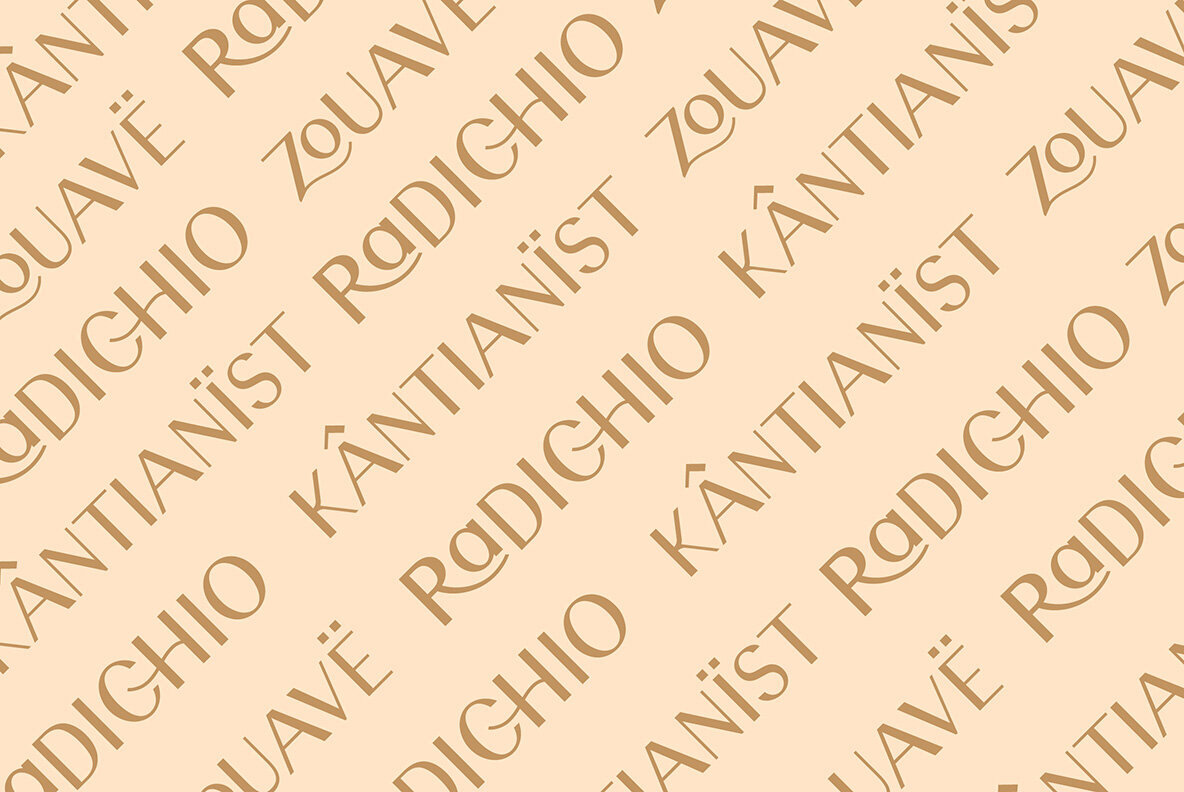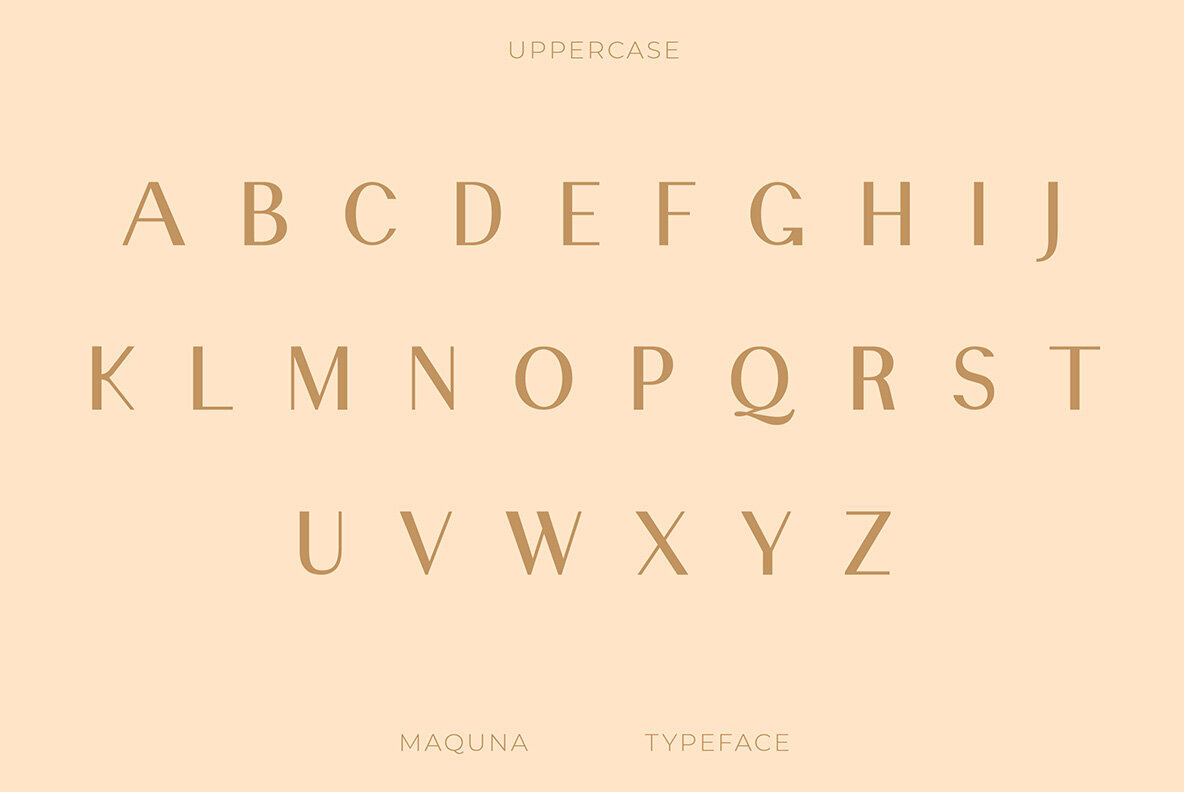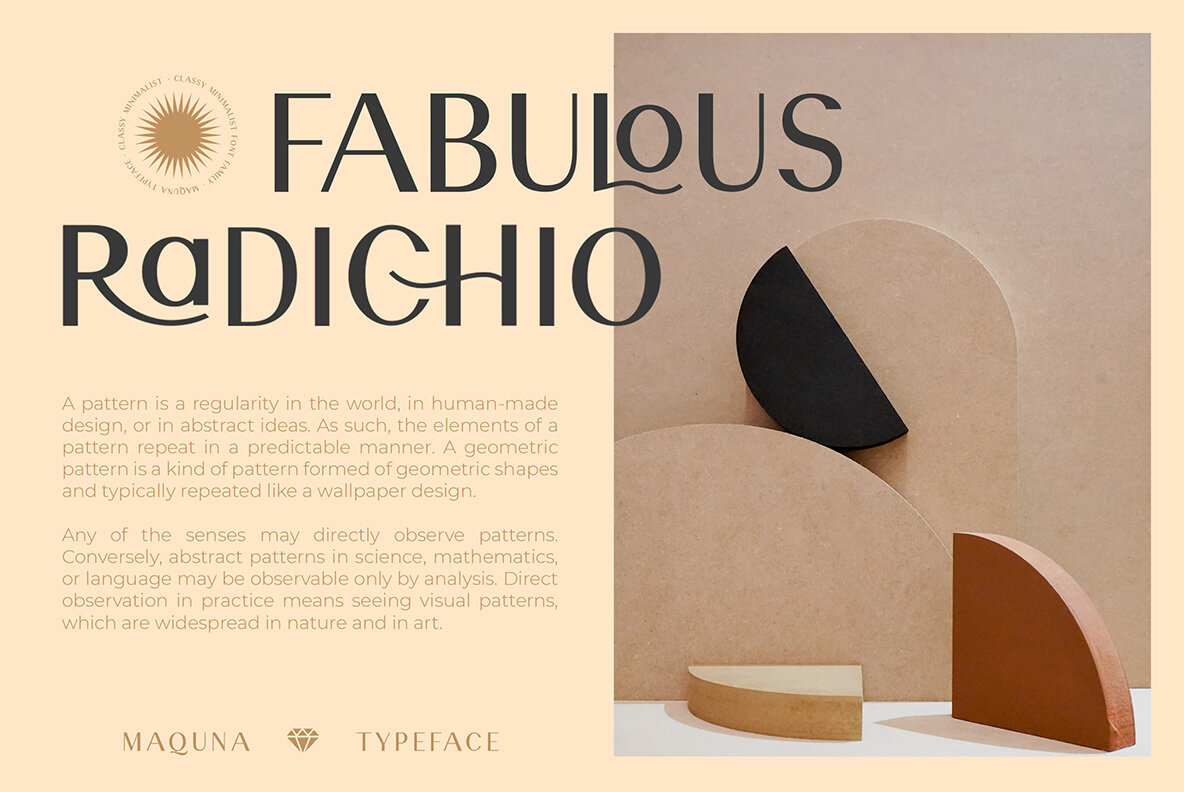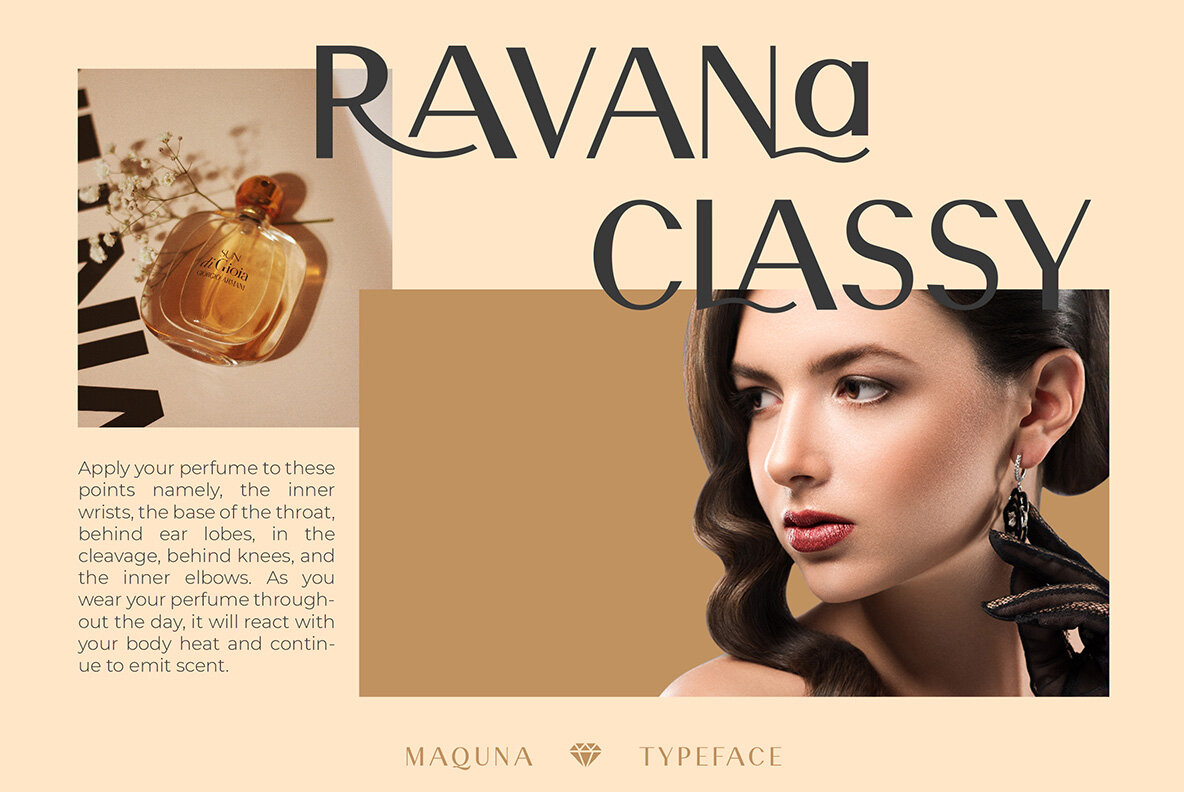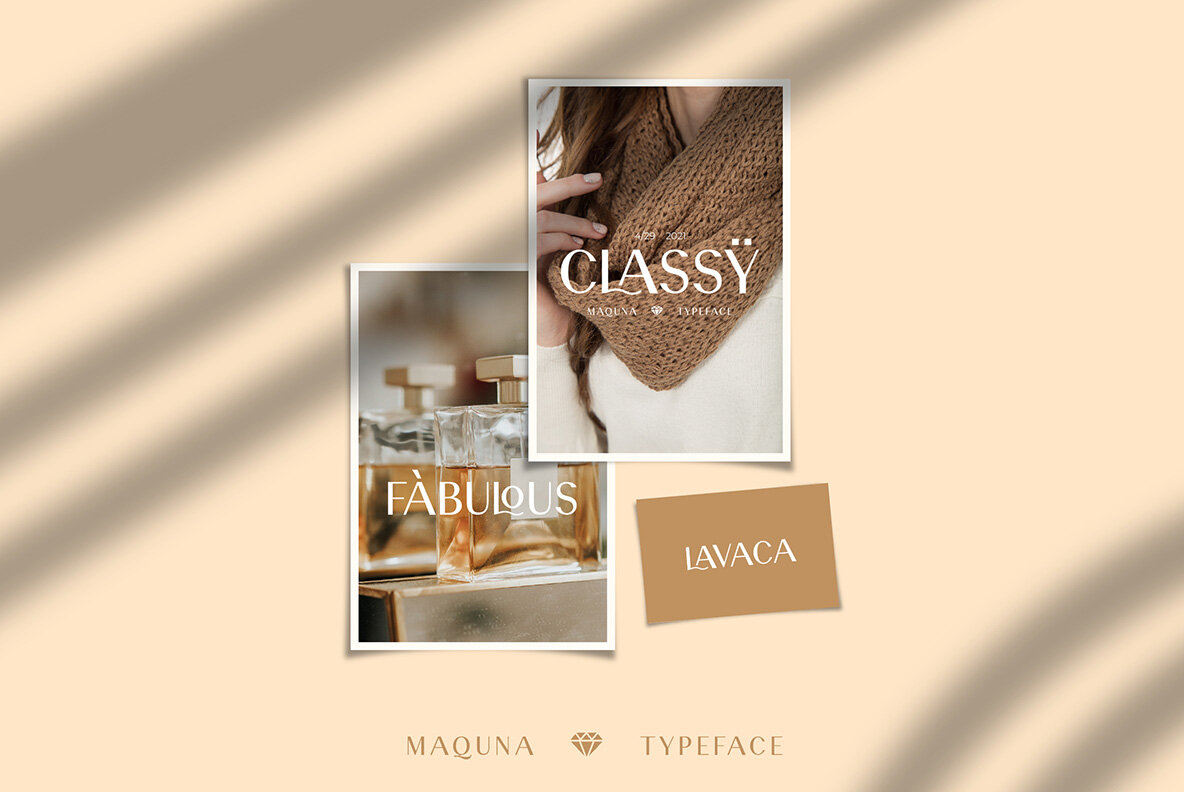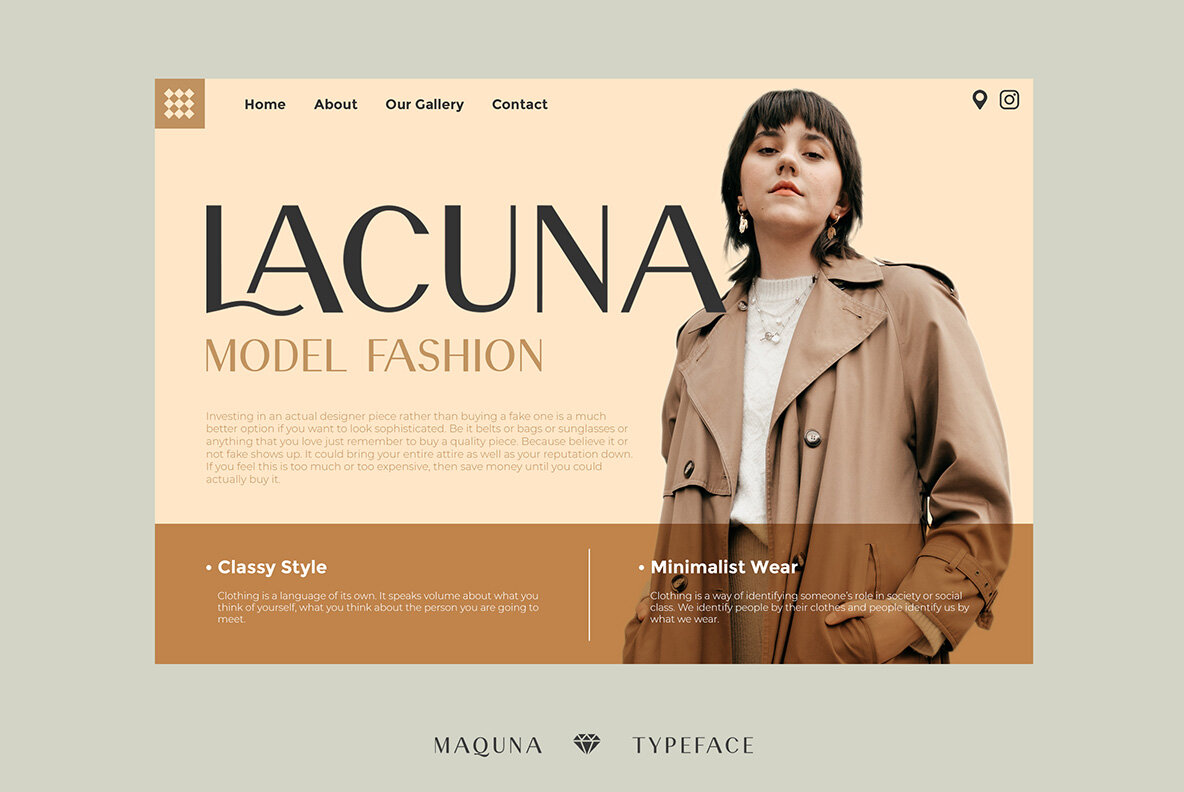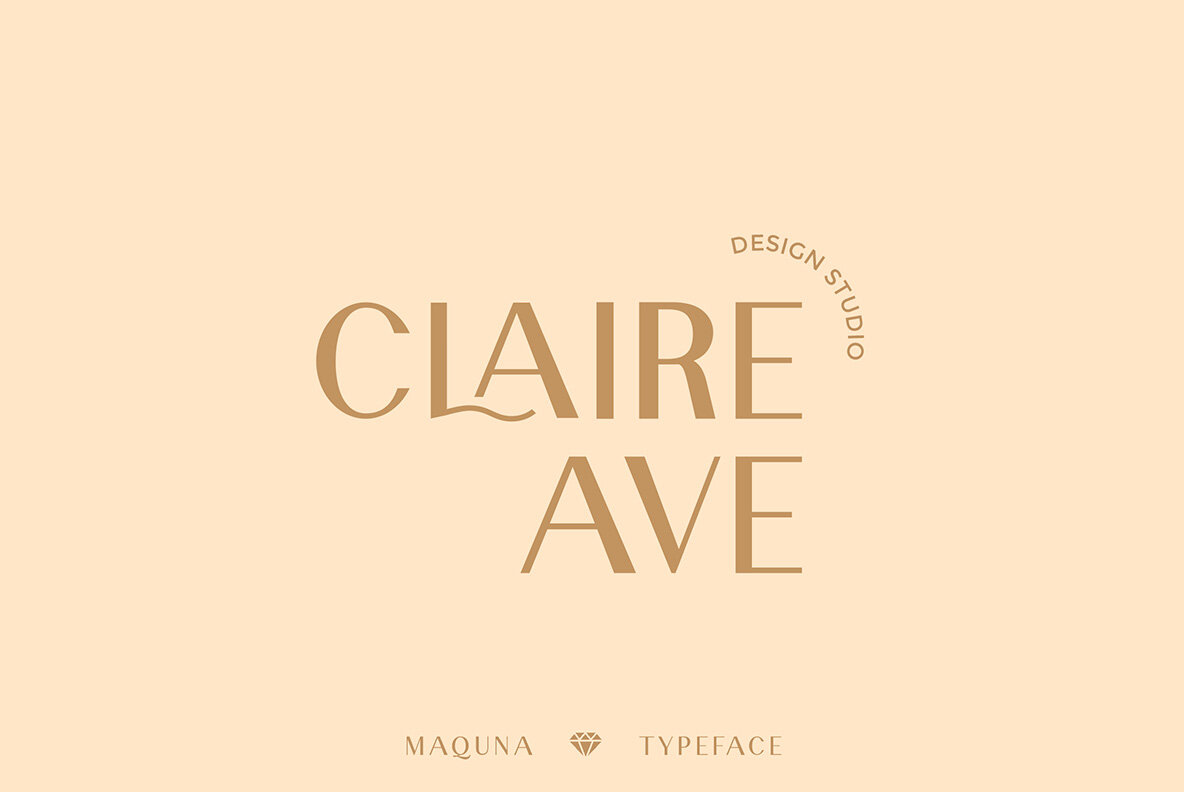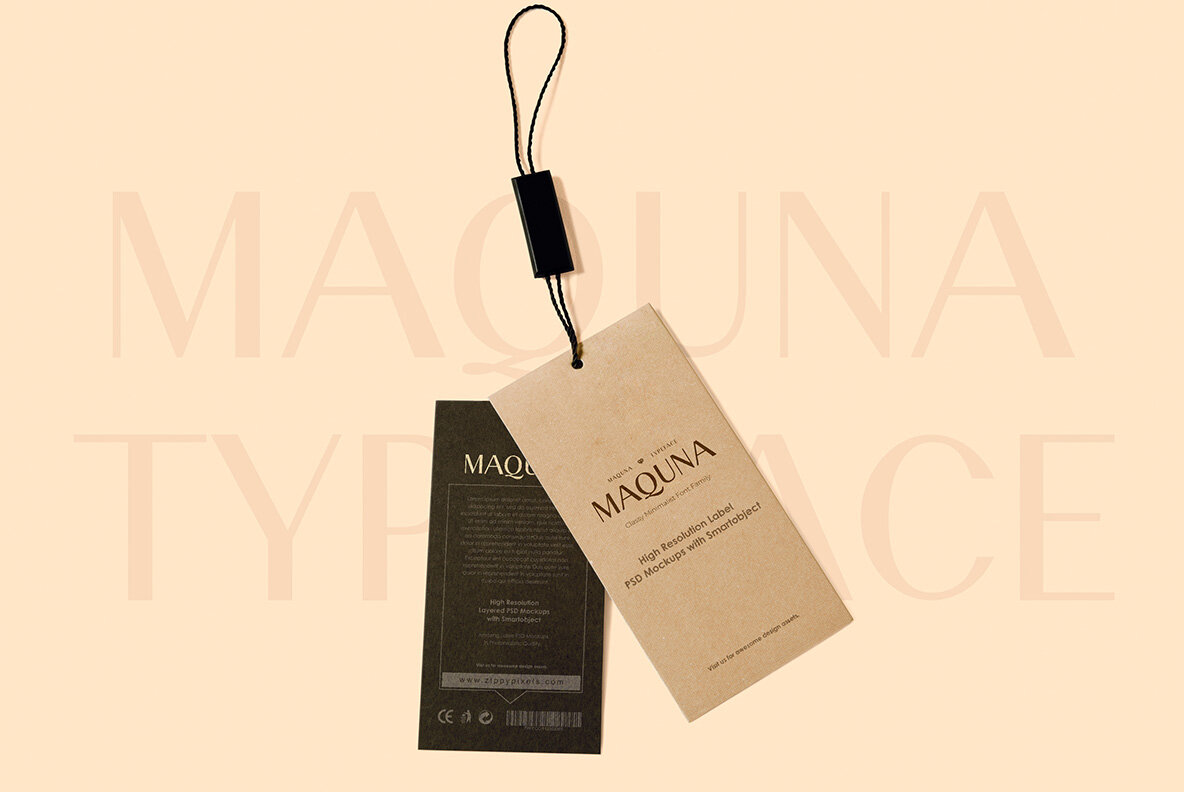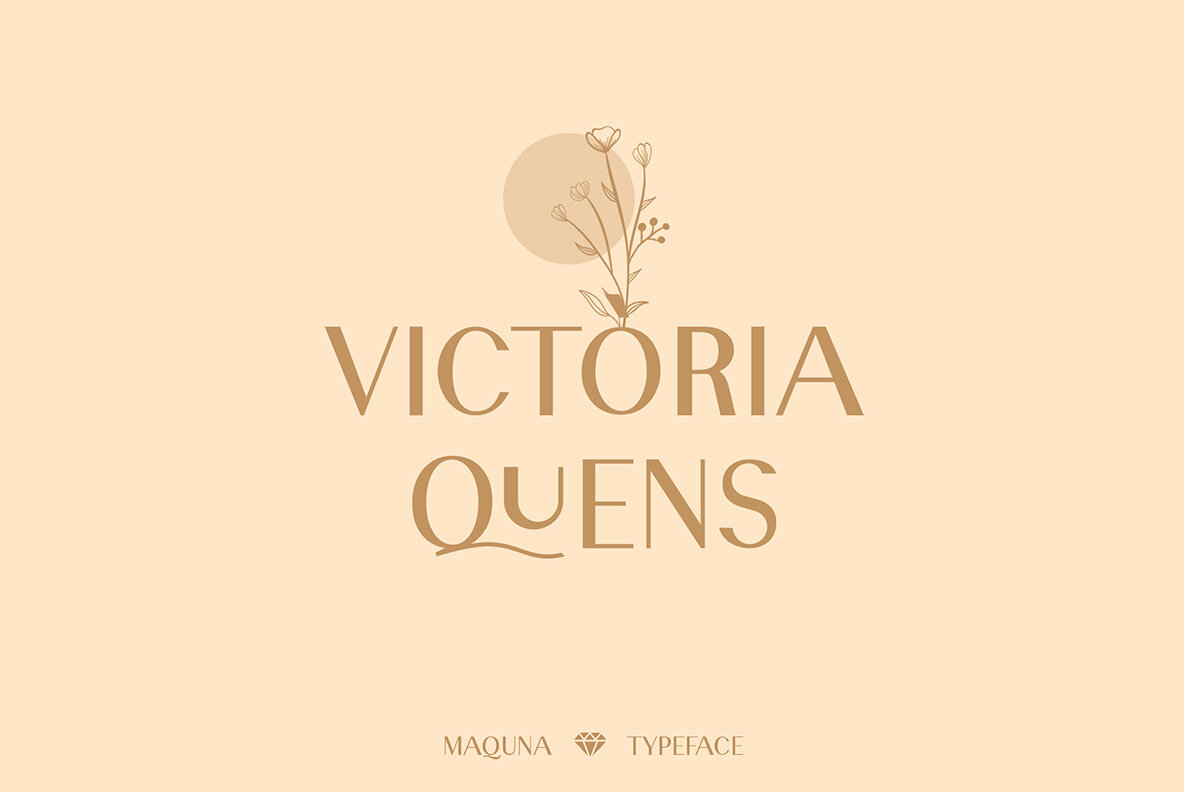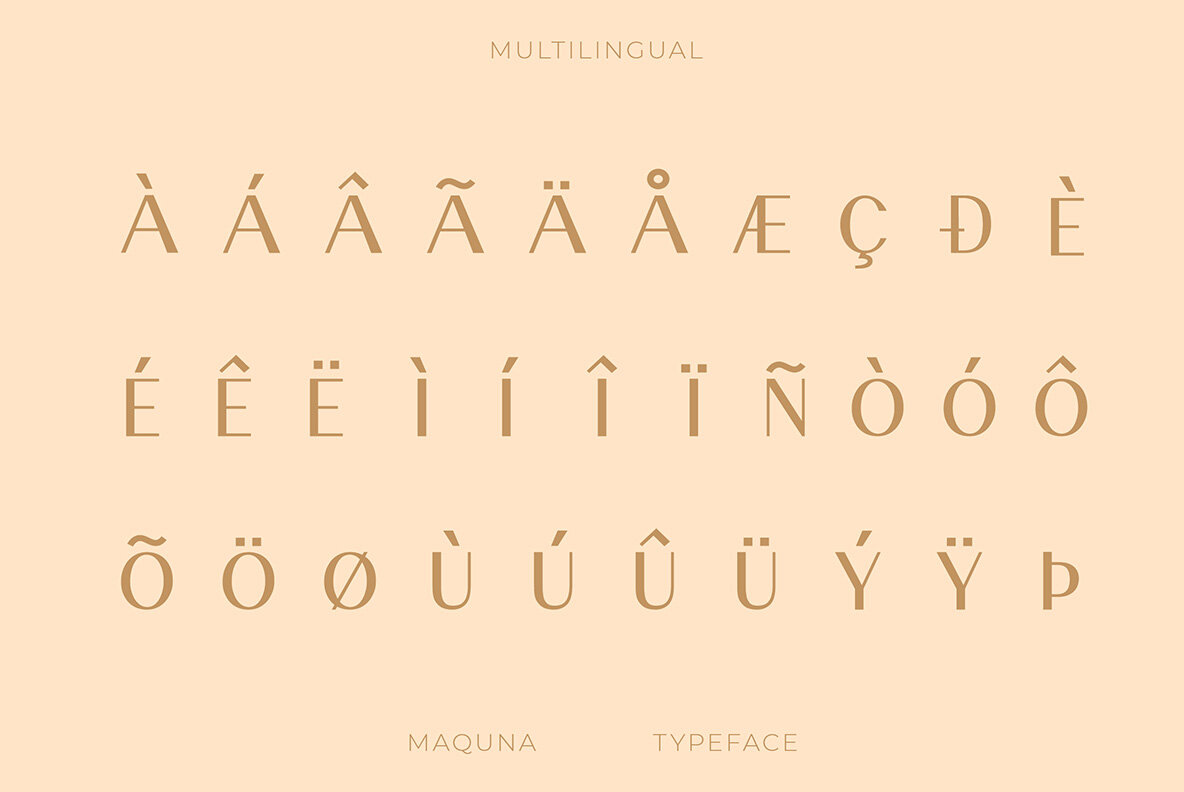
Maquna Font
Maquna Sans captures a balance of simplicity and elegance, making it an excellent choice for designers seeking a contemporary sans serif typeface. With its stunning ligatures and a plethora of special alternative glyphs, Maquna Sans offers ornamental and multilingual support. This versatile font excels across various sizes, enhancing the visual appeal of any design project, whether branding, logo creation, or editorial layout. Features: Ideal for a range of applications, from clothing branding to elegant magazine headers, Maquna Sans provides a stylish text accompaniment to any background image.Maquna Sans: A Modern Typeface for Diverse Designs